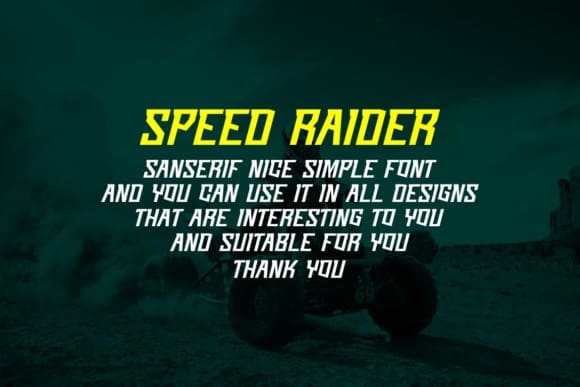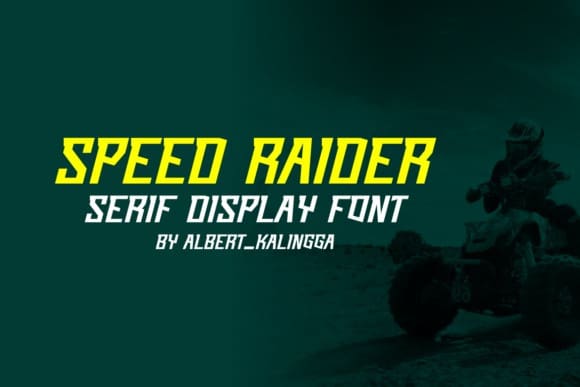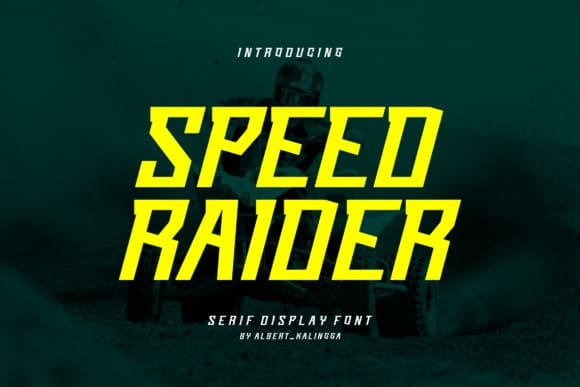
Speed Raider Font
Speed Raider Font  – Modern Font is a bold and authentic display font. The font is suitable for any branding project like logo, esport, and many more. outstanding in a wide range of contexts.